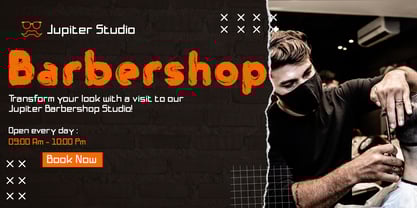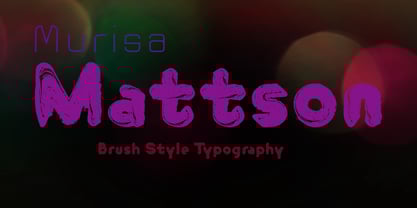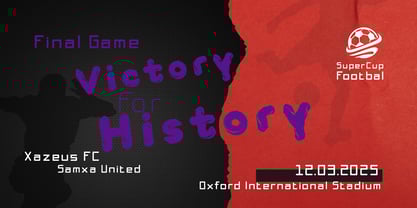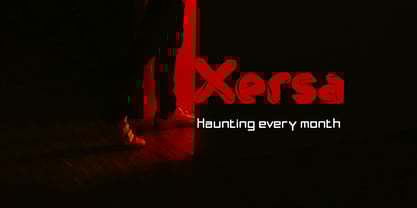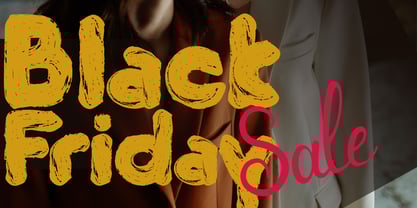
Murisa Mattson
by Murisa Studio
The Murisa Mattson Font Family was designed by Lili Sadili and published by Murisa Studio. Murisa Mattson contains 2 styles and family package options.
hello, today we want to introduce our newest font which is certainly very interesting. Murisa Mattson.
This font is inspired by a form of writing that uses a brush as a tool, of course the shape is not geometric but that is precisely what makes it attractive. We also always create fonts that can be used by our clients from Eastern Europe. Please try and may success always accompany you all.